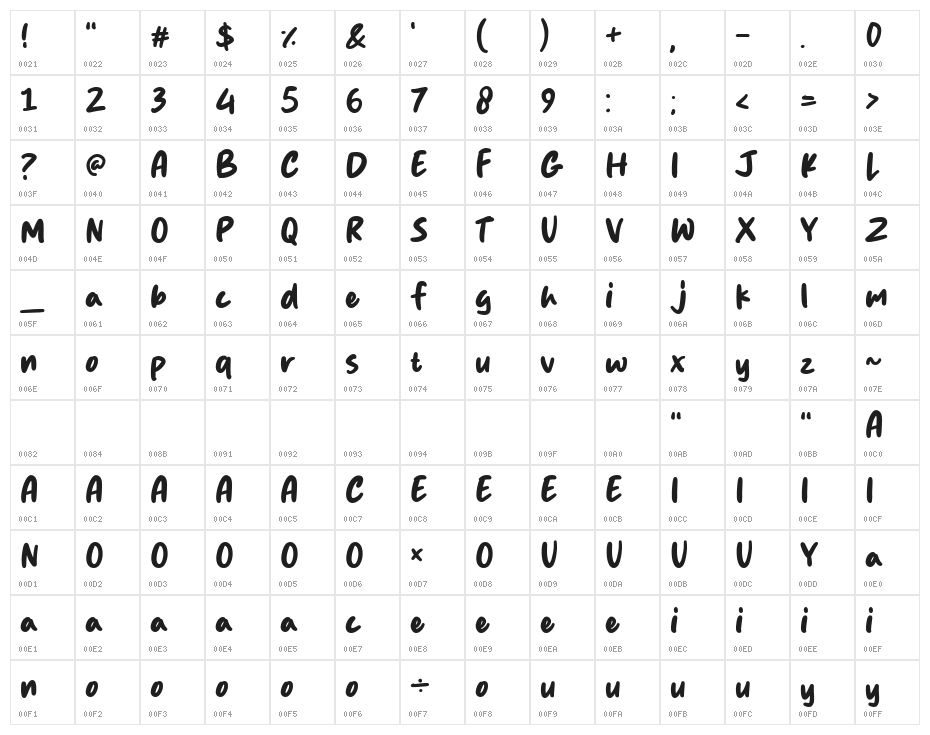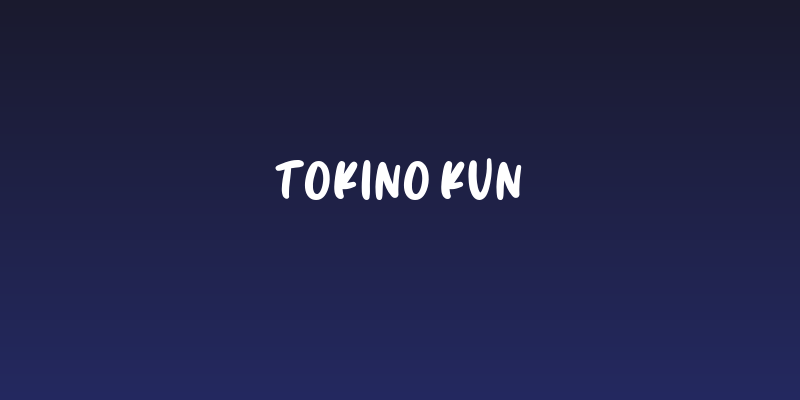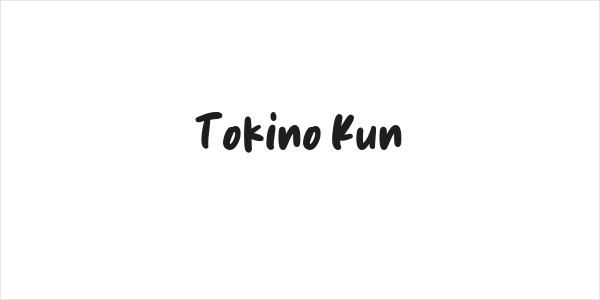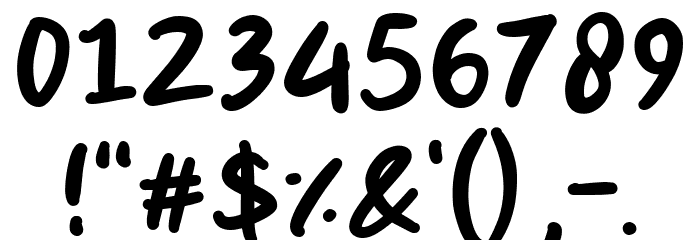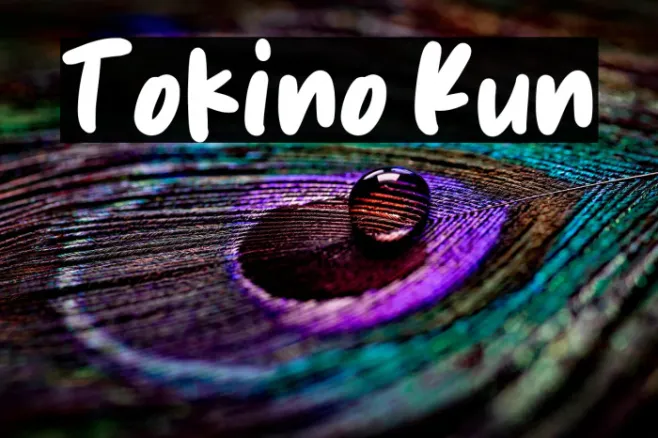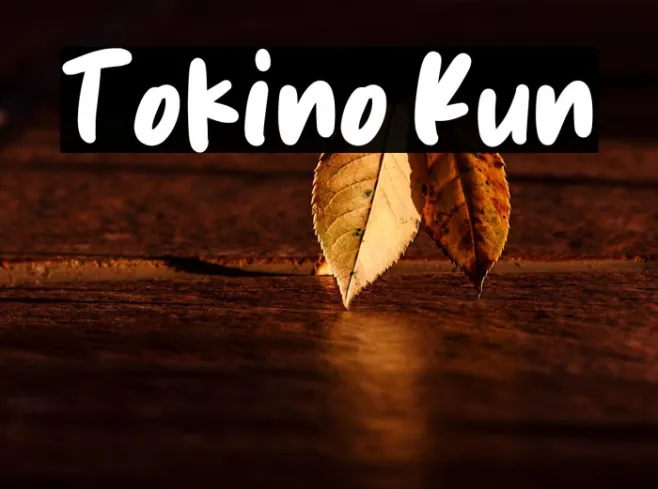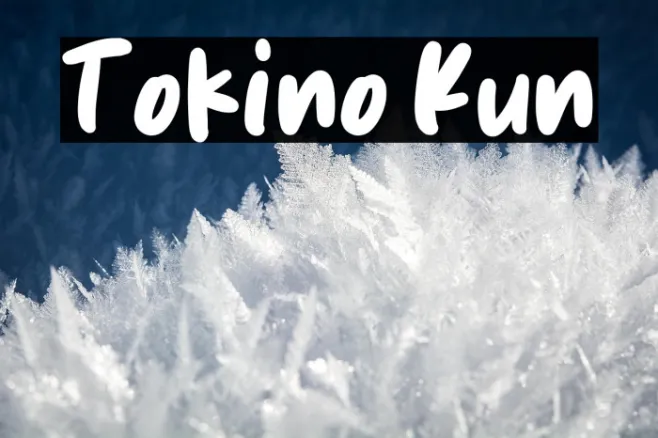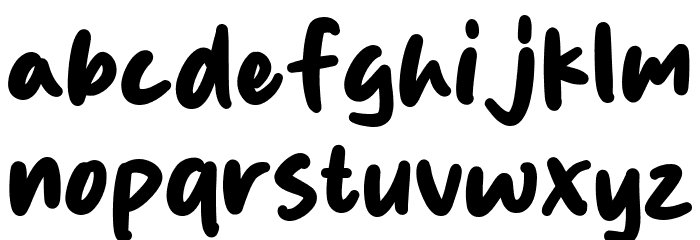
Tokino Kun Font
Tokino Kun Description
This font exudes a playful and casual handwritten style, characterized by its bold and rounded letterforms. The strokes are consistent in thickness, giving it a uniform appearance while maintaining a lively and informal vibe. The letters are slightly tilted, adding to the dynamic and energetic feel of the font. The uppercase and lowercase letters are well-balanced, with a smooth flow that enhances readability. The numerals and special characters are crafted with the same playful touch, making them cohesive with the overall design. This font is perfect for projects that require a friendly and approachable look.
| Proposed Projects | Ideal for children's books, casual branding, greeting cards, and social media graphics. |